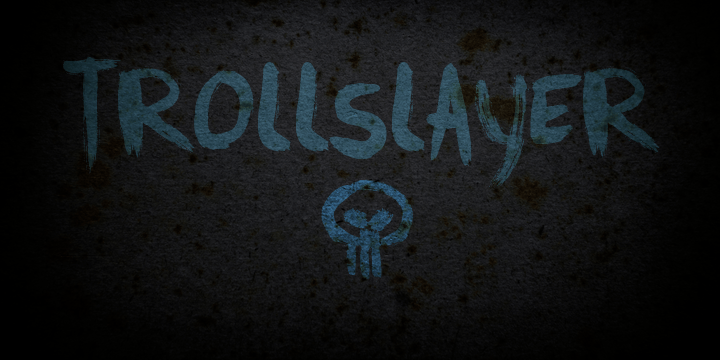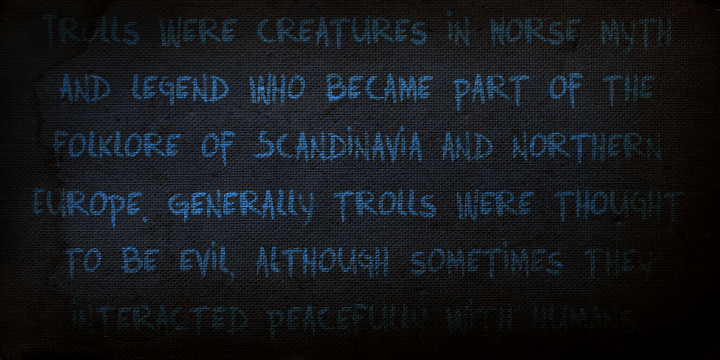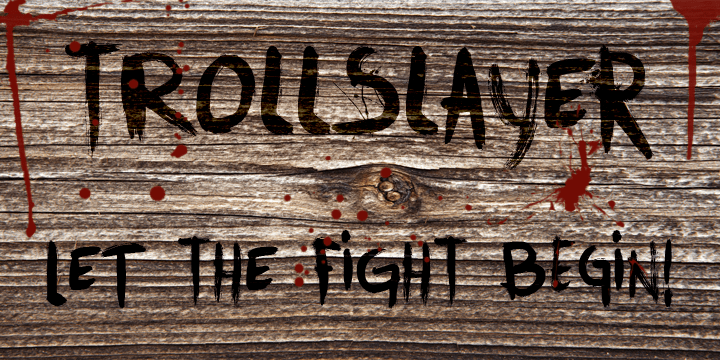
Trollslayer
Picture this: you are in the woods, hunting for Elk, when all of a sudden you hear the sound of battle horns coming from the village. Troll attack! Thank Wodan you are armed with this brand new font: Trollslayer. Let the fight begin!!